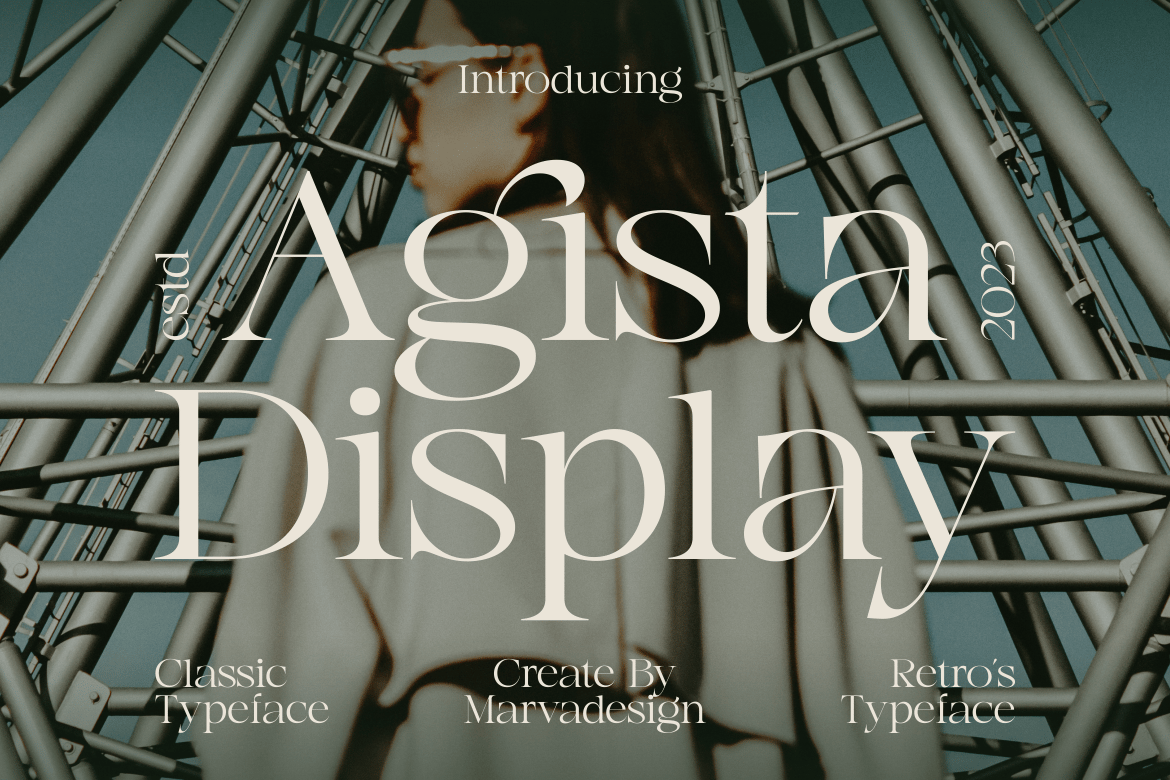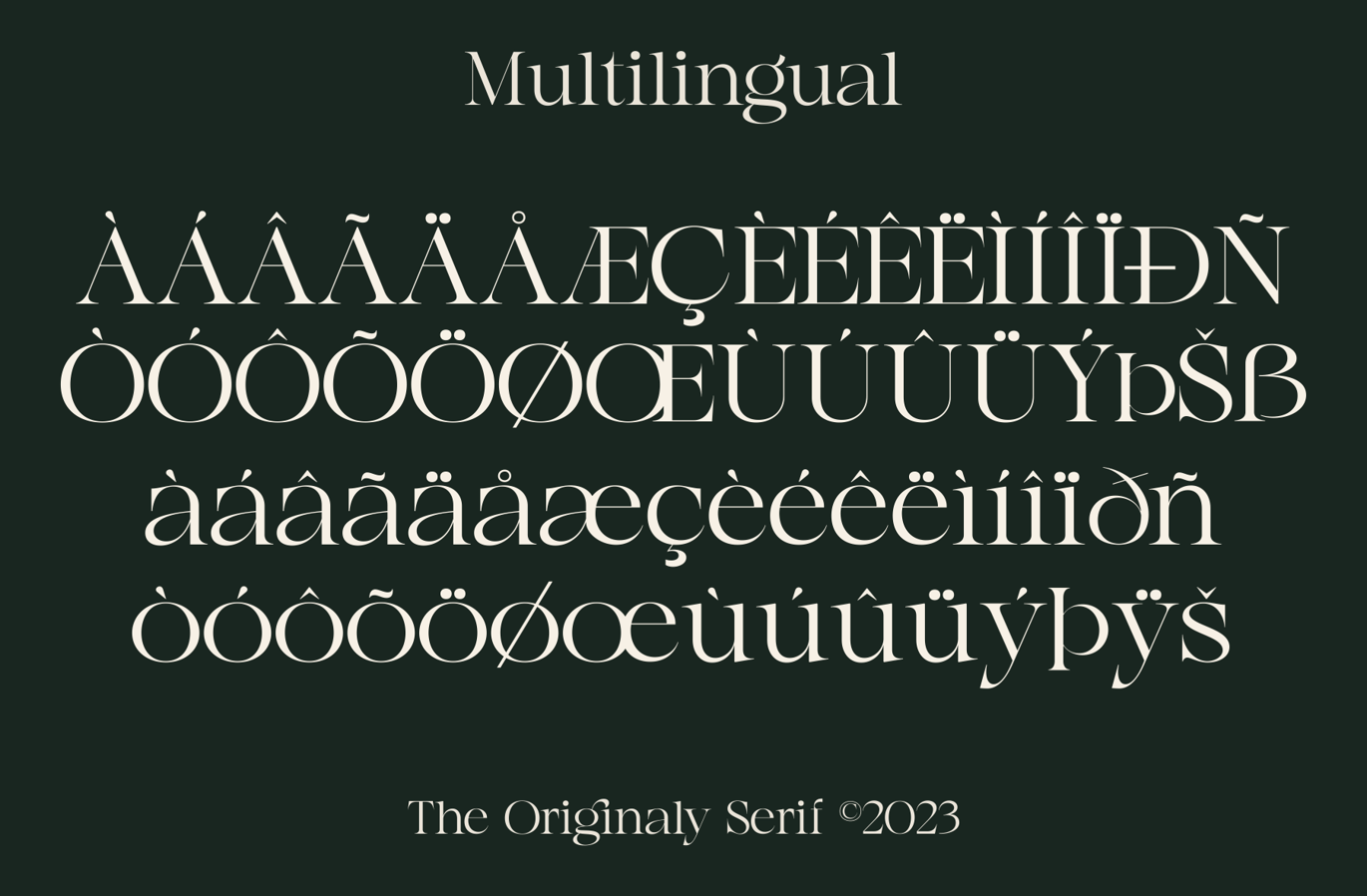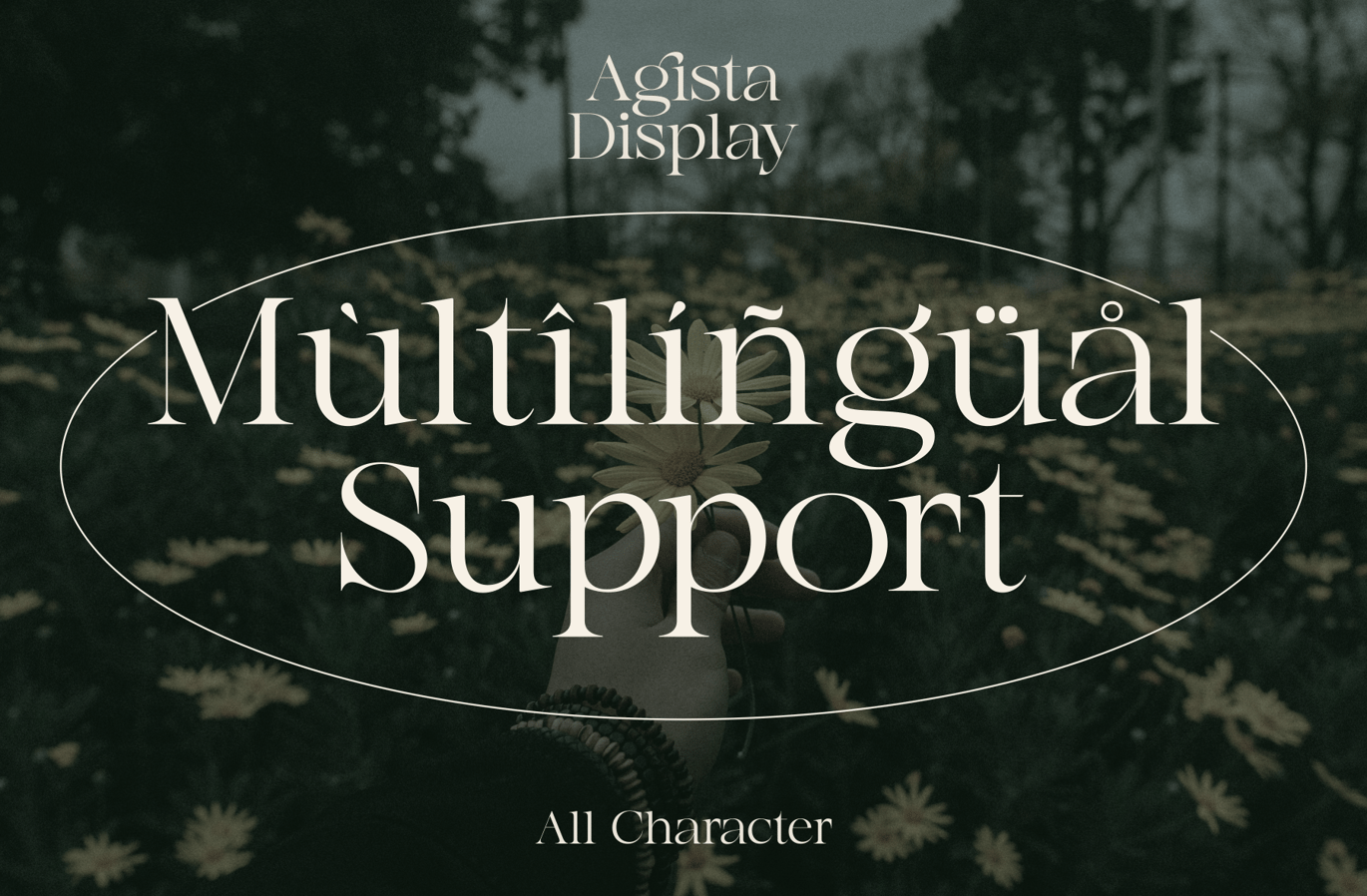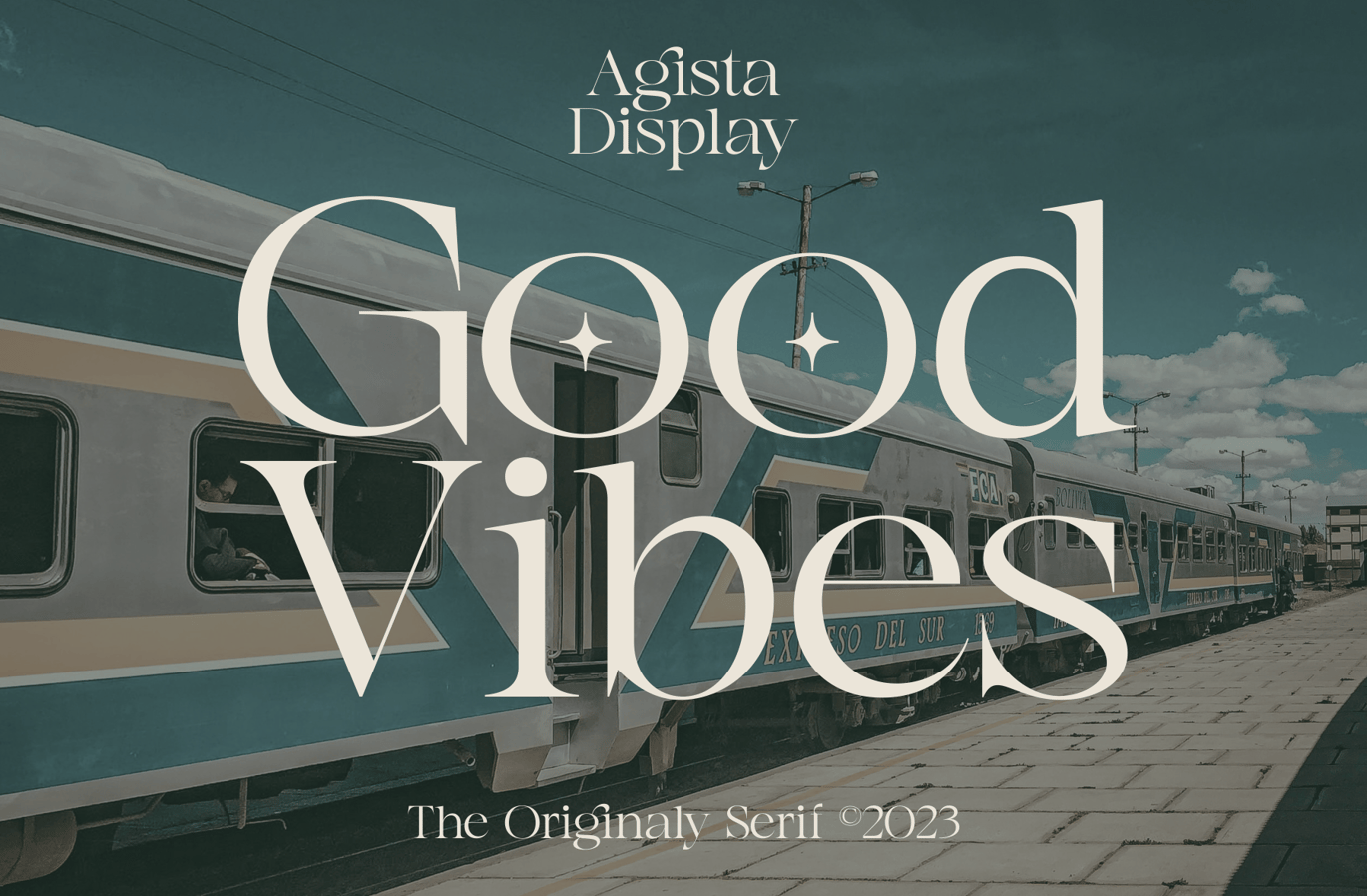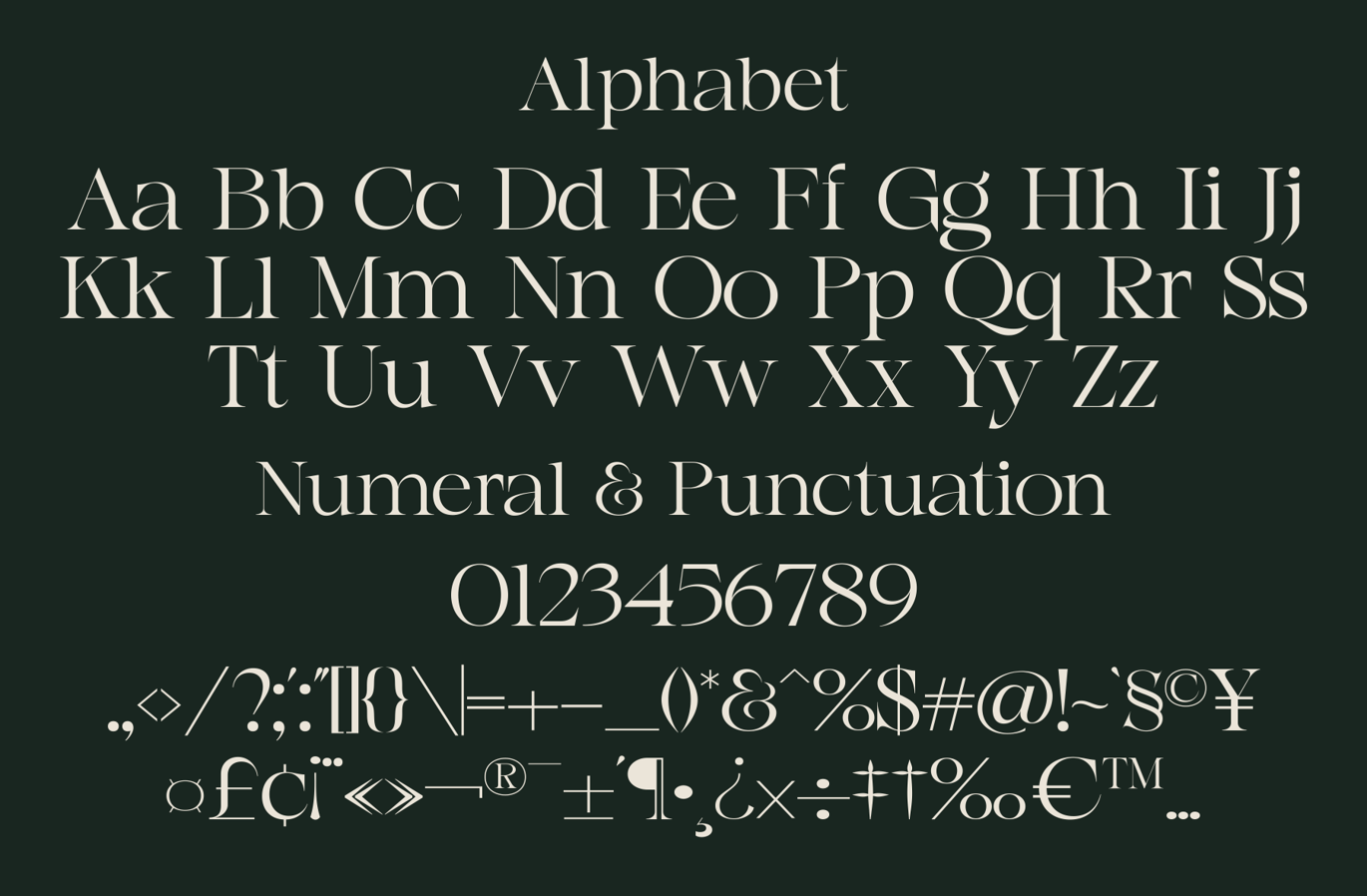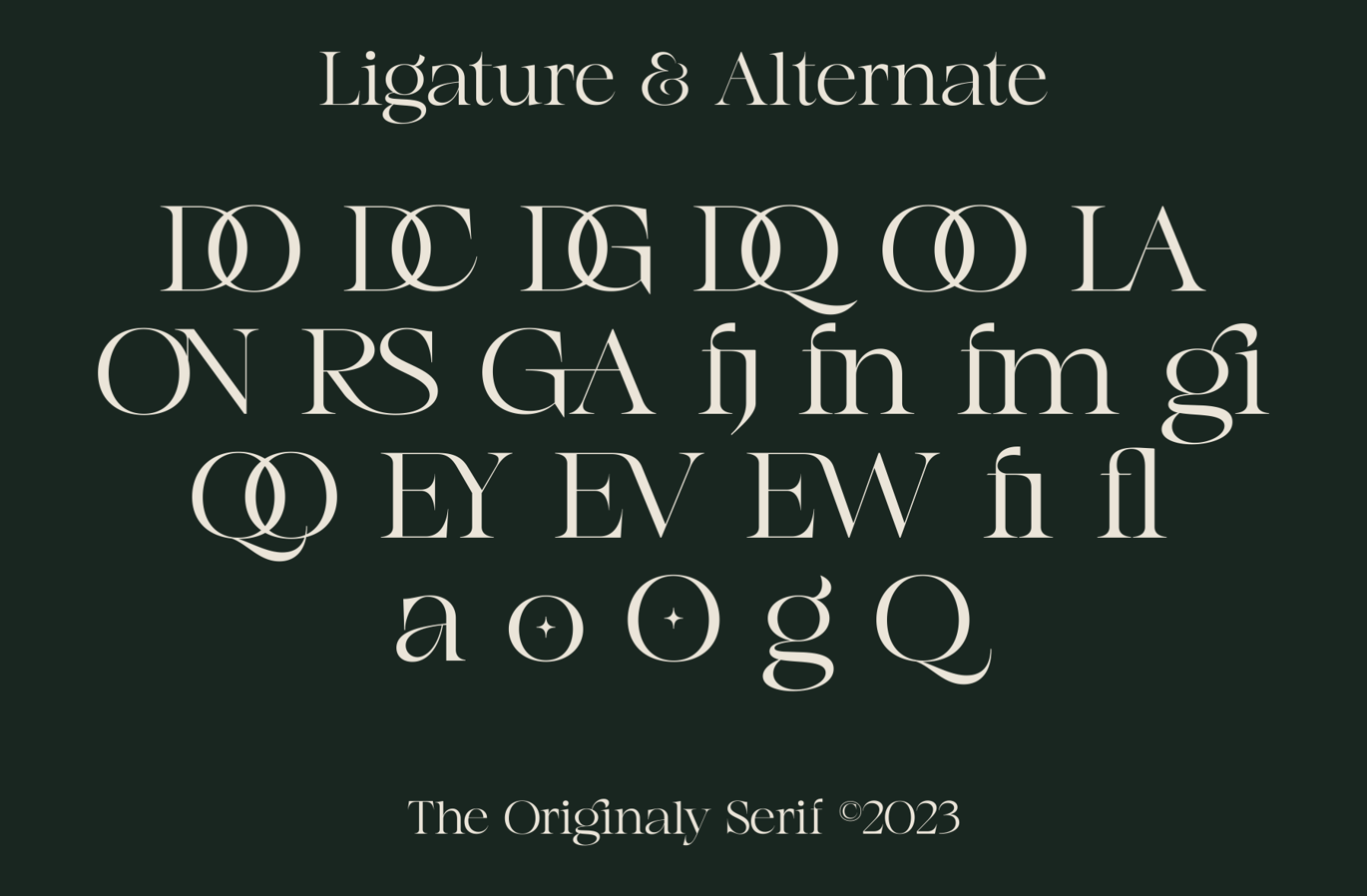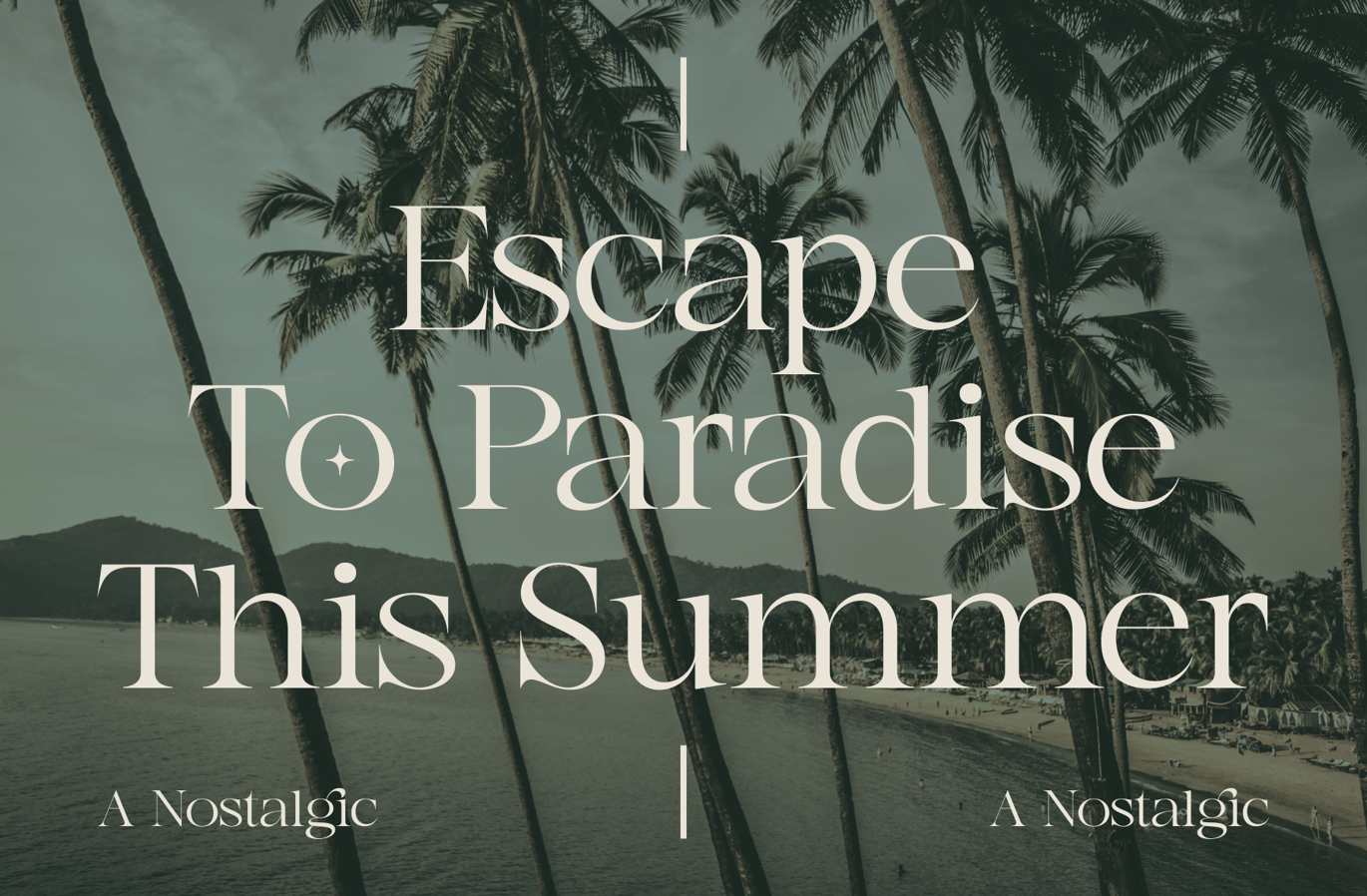
Agista Display – A Classic Serif Font
Introducing our new product Agista Display Font -A Classic Serif Font
Agista Display Font – A Classic Serif Font authentic display font. The font is suitable for any branding project like logo, Template Design, Product and many more. outstanding in a wide range of contexts.